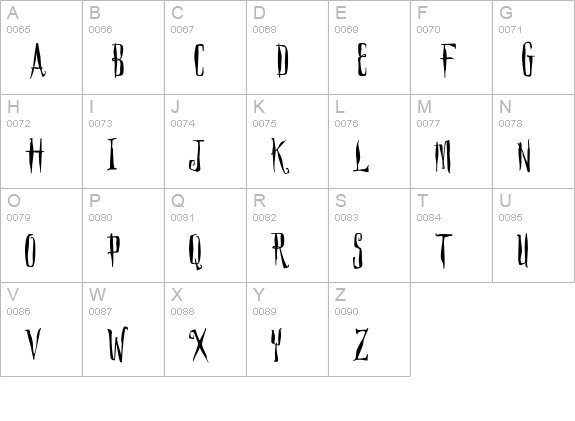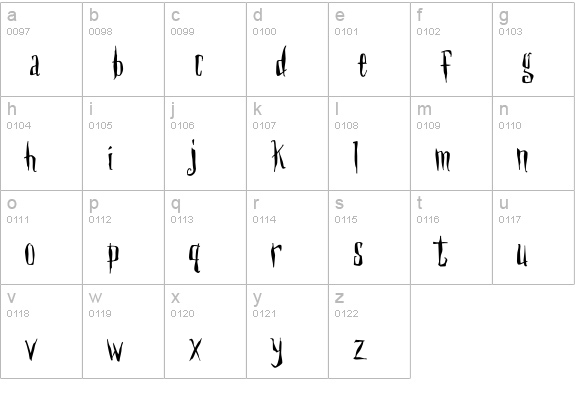
Day3 Font Details
Introducing the exquisite Day3 font, a versatile typeface that will elevate your design projects to new heights. With its elegant curves and modern aesthetic, Day3 adds a touch of sophistication to any creative endeavor. This font is perfect for logo design, branding, editorial work, and more. What's more, Day3 font is completely free to download at FontsMarket.com. Yes, you read that right - you can access this premium font at no cost, making it an invaluable addition to your font library. Don't miss out on the opportunity to enhance your designs with the beauty and elegance of Day3 font. Download it today and let your creativity shine.